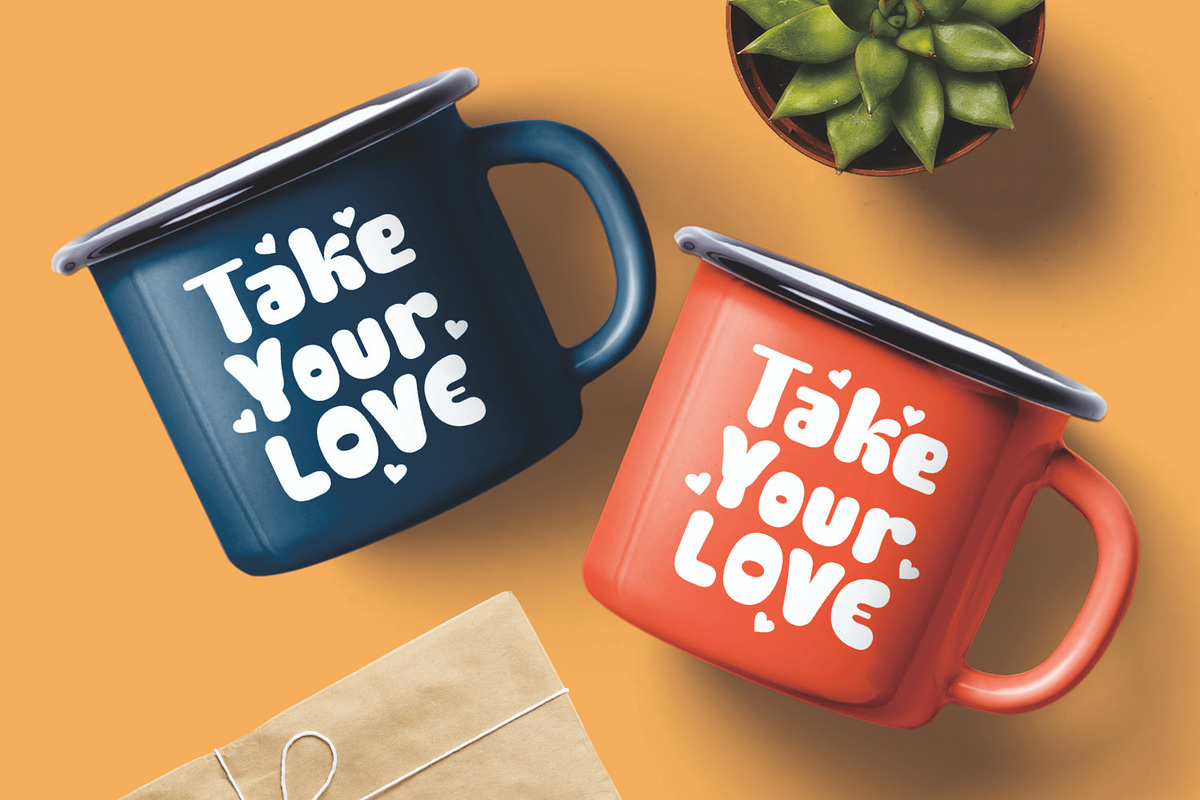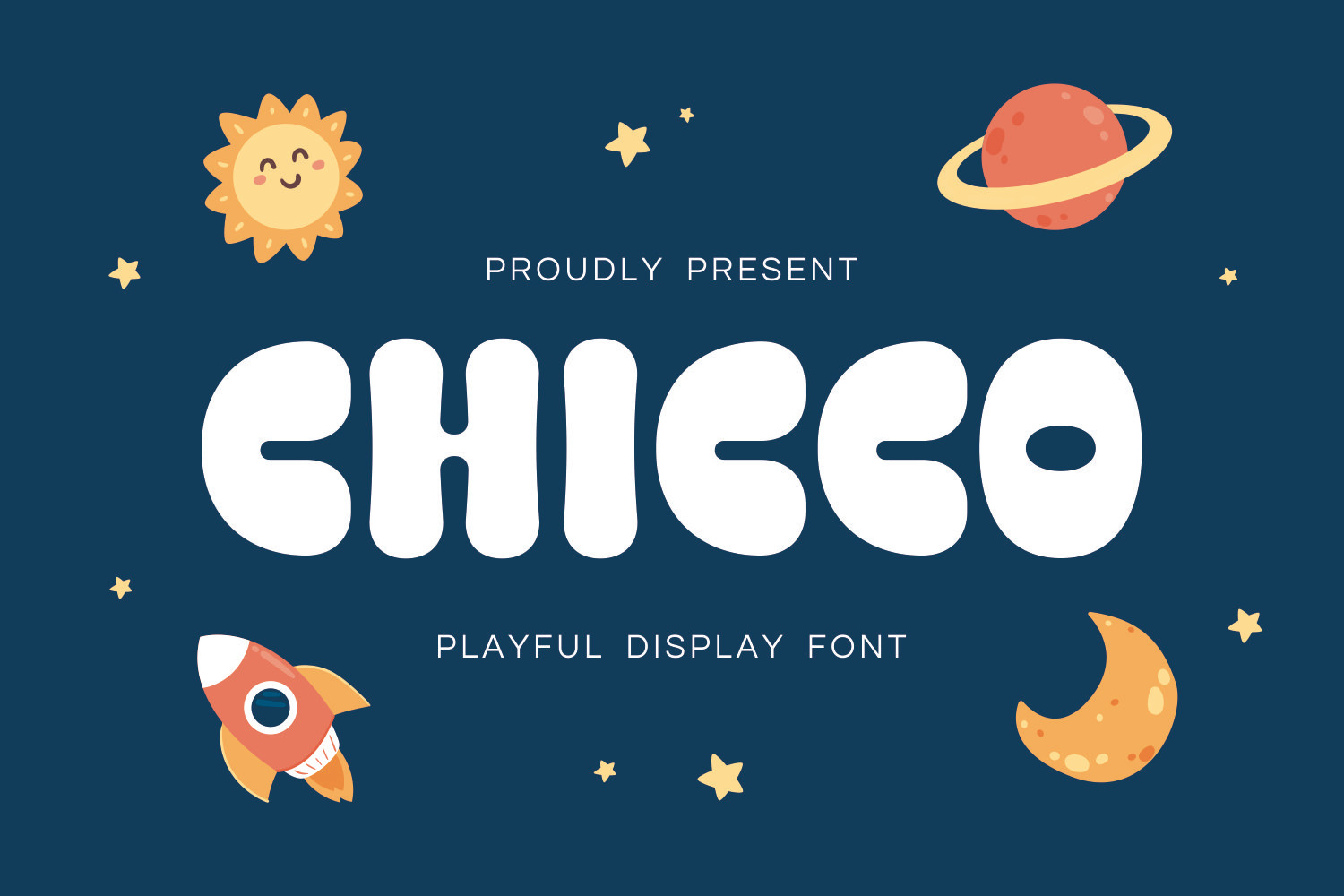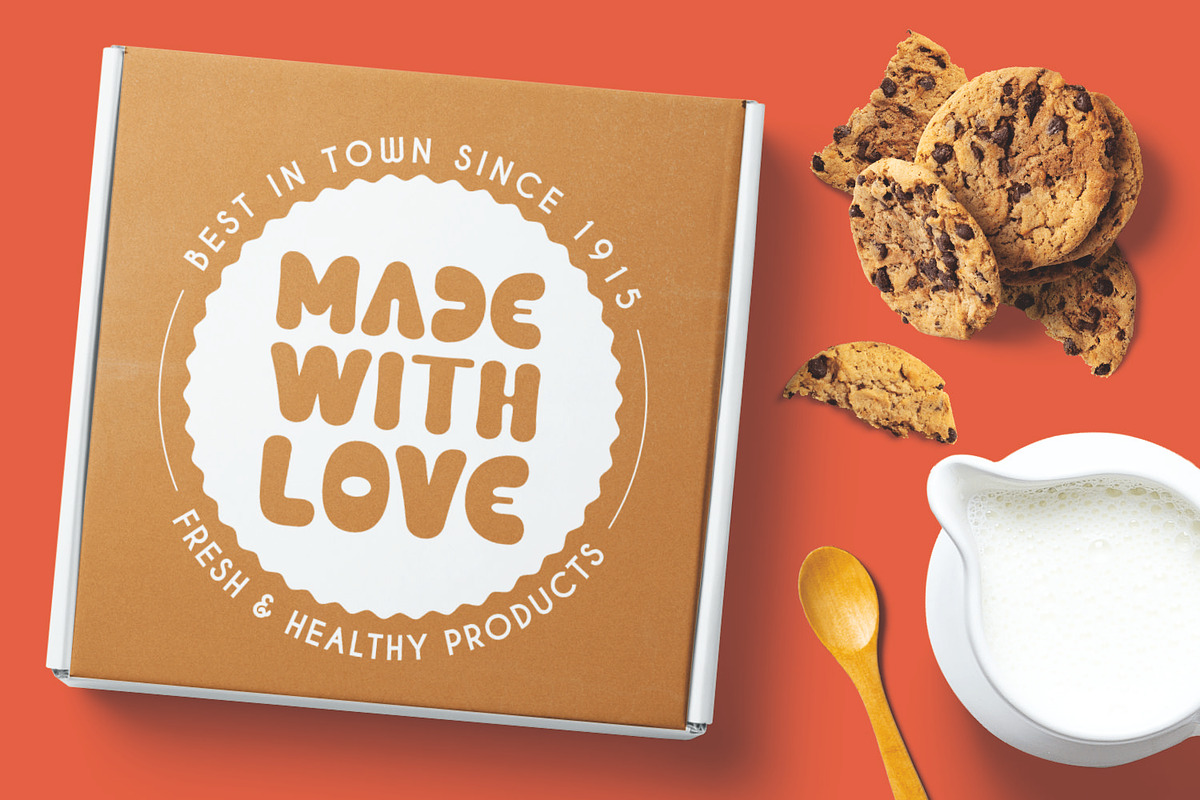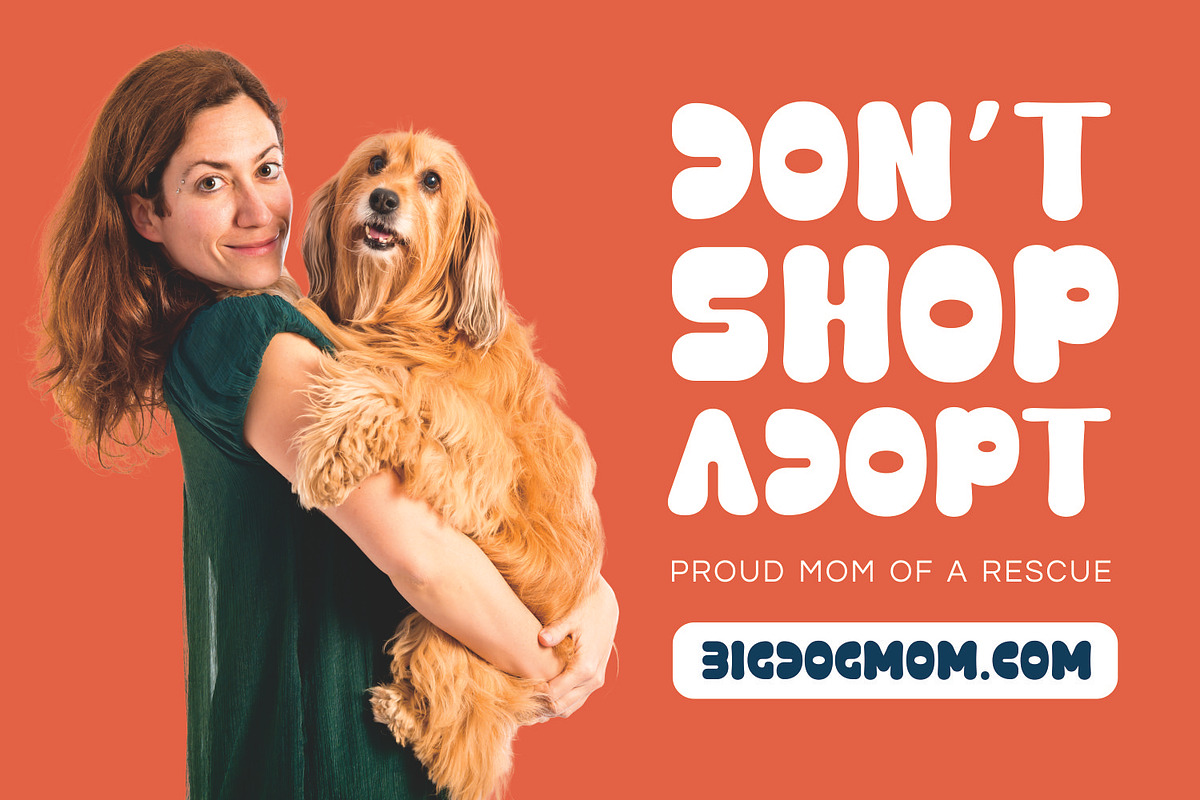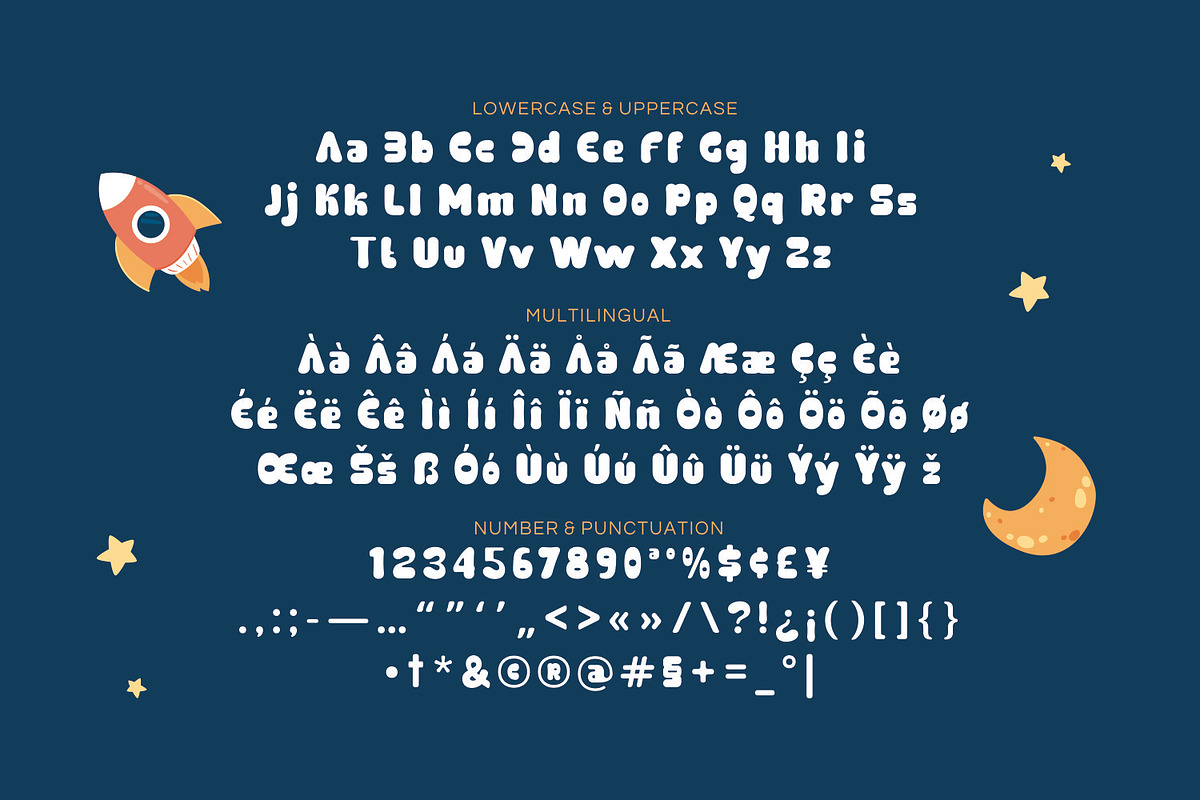
Chicco | Playful Rounded Font
Say hello to chicco, a delightfully bold and friendly display font that's bursting with personality! With its super rounded letters and chunky, consistent strokes, chicco is designed to bring a sense of fun approachability to any project.
Each character in chicco has been crafted to be soft, bubbly, and incredibly charming. The thick letterforms make a big impact, ensuring your headlines, and quotes stand out in the most playful way possible. Whether you're designing for a children's brand, a cozy cafe, a pet adoption campaign, or a cheerful social media feed.
Perfect for branding, logos, food packaging, merchandise (like mugs and t-shirts!), social media graphics, posters, children's books, website headers, and any project that needs a dose of pure happiness.